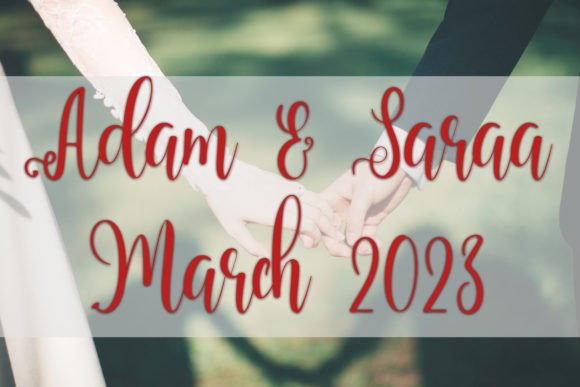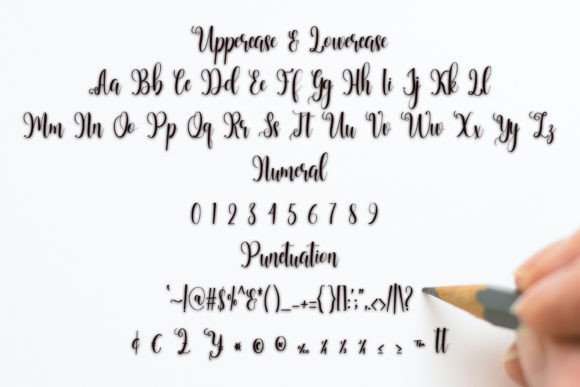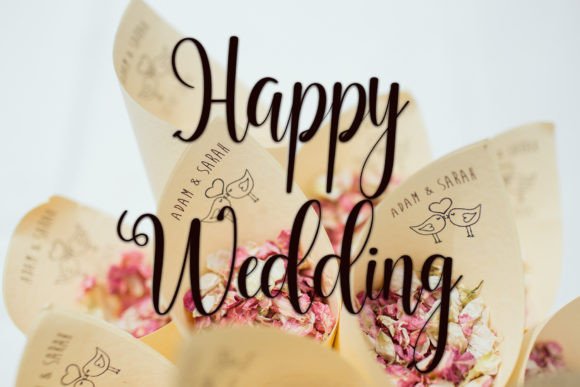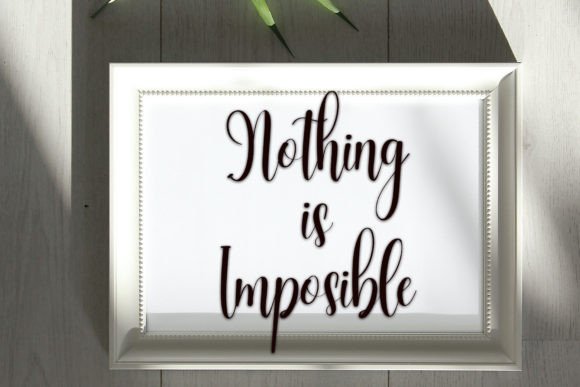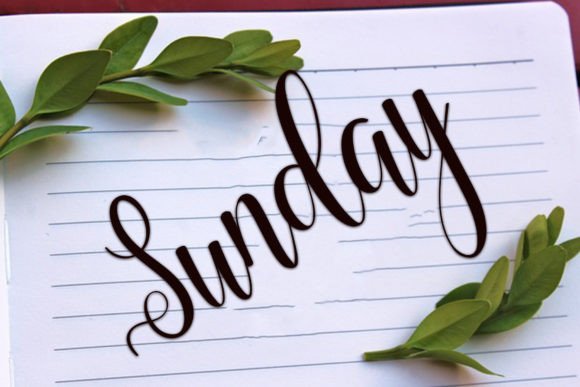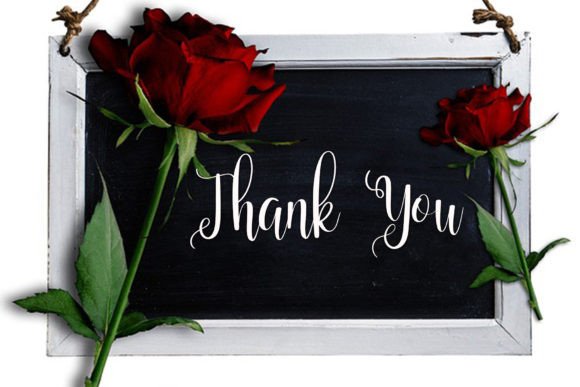
Discover the Elegance of Beautiful Wedding Font: Elevate Your Designs with Timeless Charm
Are you searching for the perfect font to add a touch of elegance and sophistication to your designs? Look no further than the Beautiful Wedding Font. This stunning handwritten font is designed to bring a sense of refinement and luxury to your projects, making it ideal for a wide range of creative endeavors. In this article, we’ll explore the unique features of the Beautiful Wedding Font and how you can use it to create breathtaking designs that leave a lasting impression.
The Beauty of Beautiful Wedding Font
Beautiful Wedding Font is a neat and beautiful handwritten font that exudes an elegant touch. Its incredibly distinct and timeless style is sure to capture the hearts of designers and crafters alike. With its smooth, flowing lines and delicate curves, this font is perfect for creating designs that require a high level of sophistication and poise.
One of the standout features of Beautiful Wedding Font is its versatility. Whether you’re working on a wedding invitation, a branding project, or a digital design, this font is sure to complement your work with its refined and luxurious feel. Its elegant style makes it an excellent choice for designers who want to add a touch of glamour and sophistication to their creations.
Key Features of Beautiful Wedding Font
- Handwritten with love: Beautiful Wedding Font is a carefully crafted handwritten font that boasts a unique and personal touch.
- Elegant and refined: This font features smooth, flowing lines and delicate curves that give it a sophisticated and luxurious feel.
- Timeless style: The Beautiful Wedding Font has a timeless quality that ensures it will remain stylish and relevant for years to come.
- Highly versatile: This font can be used for a wide range of projects, from wedding invitations and branding to digital designs and more.
How to Use Beautiful Wedding Font in Your Designs
Using Beautiful Wedding Font in your designs is incredibly easy. Here are a few tips to get you started:
- Pair it with complementary fonts: Beautiful Wedding Font pairs beautifully with a range of other fonts. Experiment with different combinations to find the perfect match for your design.
- Use it for headings and titles: The elegant style of Beautiful Wedding Font makes it perfect for headings and titles. Use it to add a touch of sophistication to your designs.
- Add a personal touch: Beautiful Wedding Font is perfect for adding a personal touch to your designs. Use it to create custom wedding invitations, greeting cards, and more.
Why Designers and Crafters Love Beautiful Wedding Font
Beautiful Wedding Font has quickly become a favorite among designers and crafters. Here are a few reasons why:
- Unique and distinctive: This font has a unique and distinctive style that sets it apart from other fonts.
- Easy to use: Beautiful Wedding Font is incredibly easy to use, making it perfect for designers and crafters of all skill levels.
- High-quality design: This font is designed to the highest standards, ensuring that it looks beautiful in any design.
If you’re looking for a beautiful and elegant font to elevate your designs, look no further than Beautiful Wedding Font. With its timeless style, versatility, and ease of use, this font is sure to become a staple in your design toolkit. Whether you’re working on a wedding invitation, a branding project, or a digital design, Beautiful Wedding Font is the perfect choice for designers and crafters who want to add a touch of sophistication and luxury to their creations.